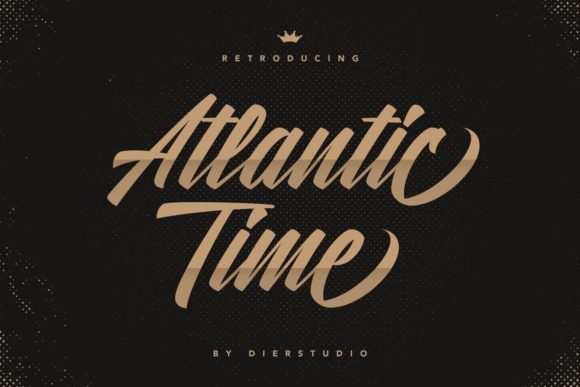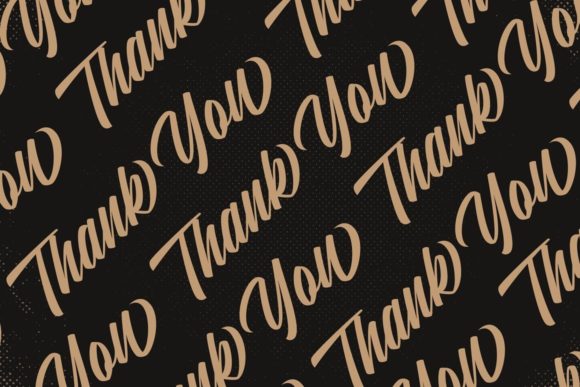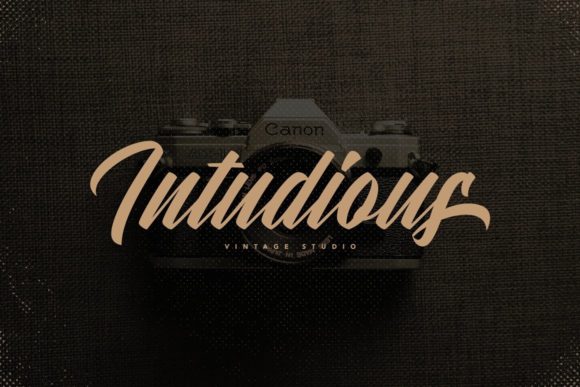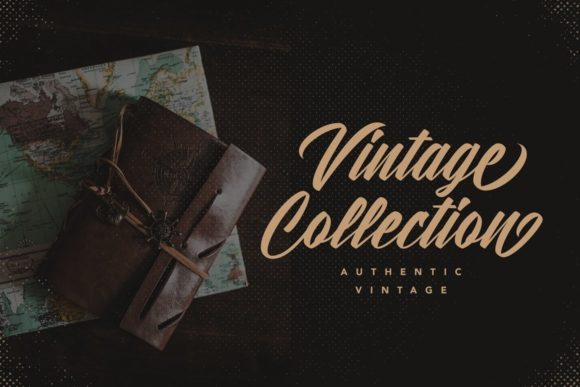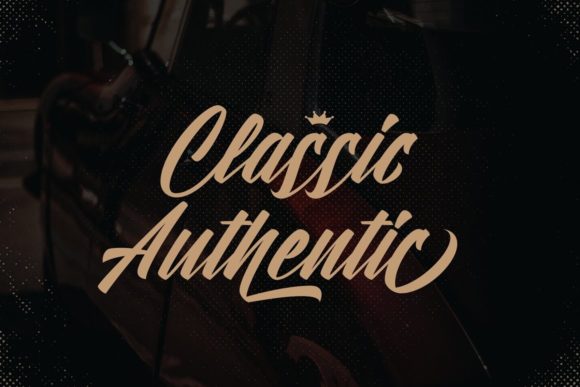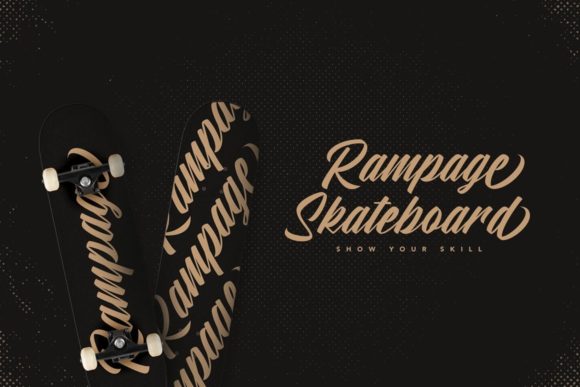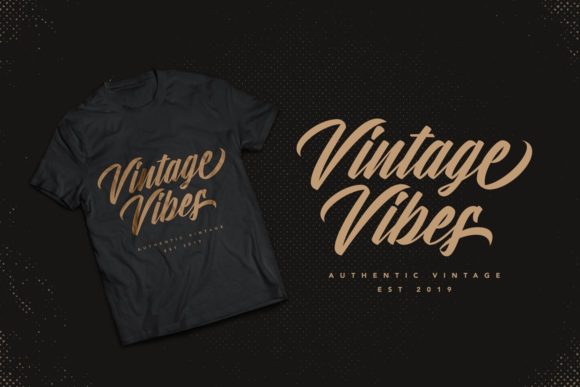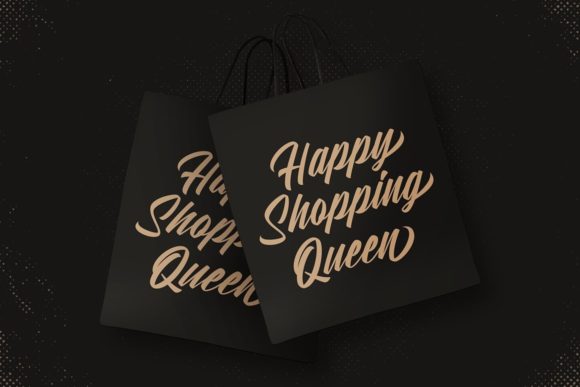
About Atlantic Time Font
Atlantic Time is an enchanting handwritten font. This versatile script font has a wide spectrum of applications ranging from greeting cards to headlines and is guaranteed to add a romantic feel to your next project.